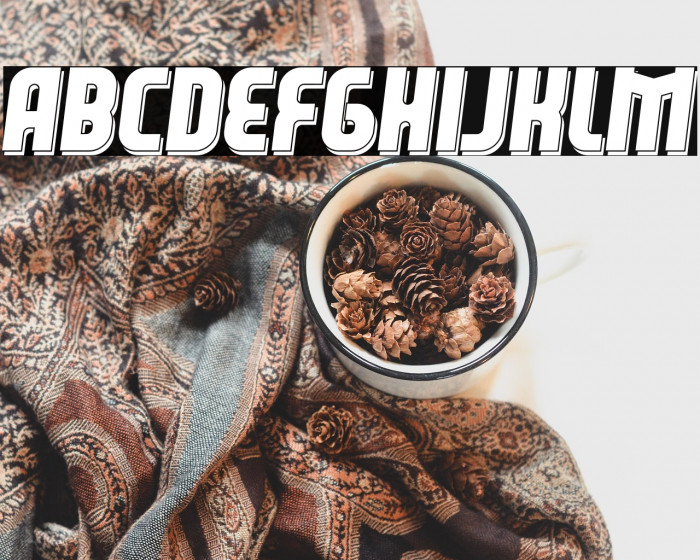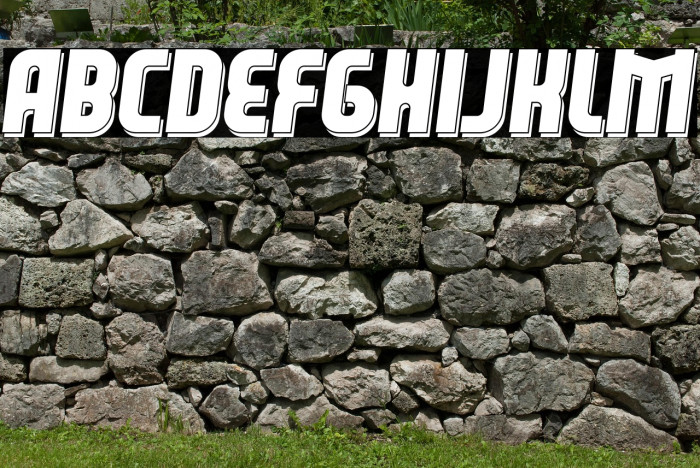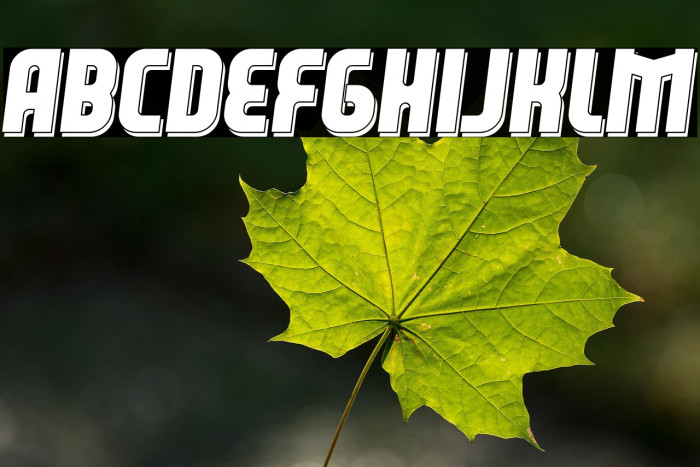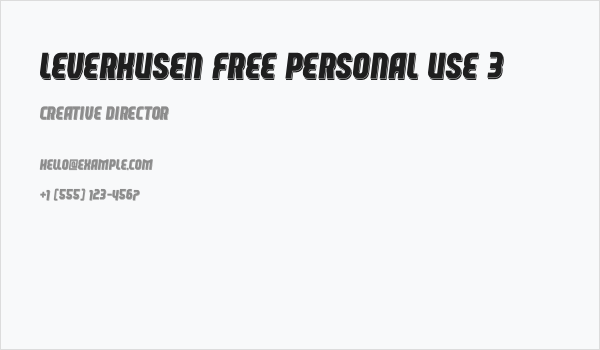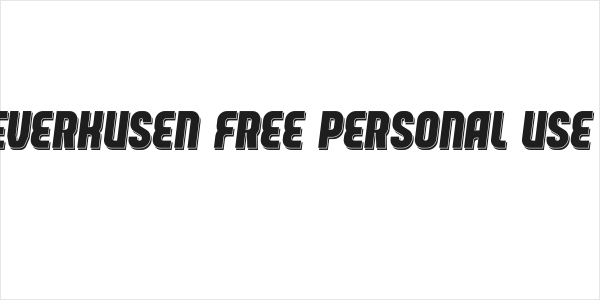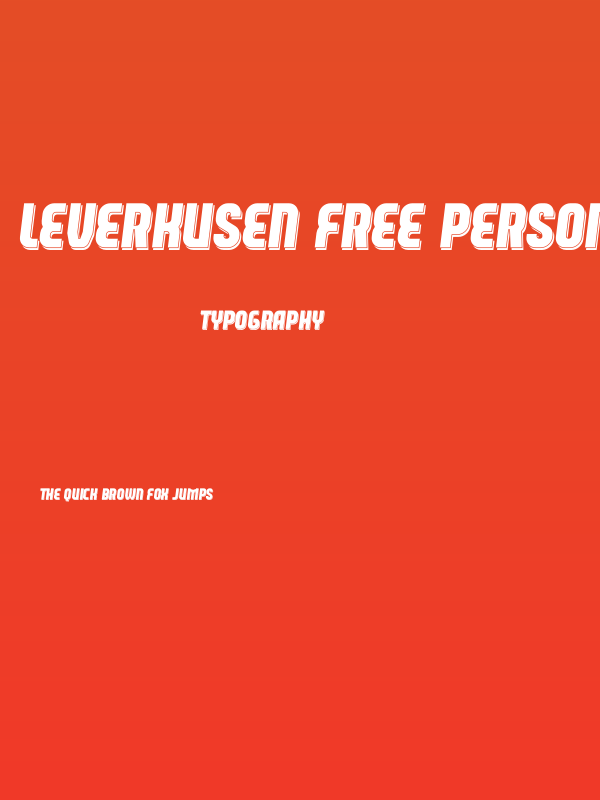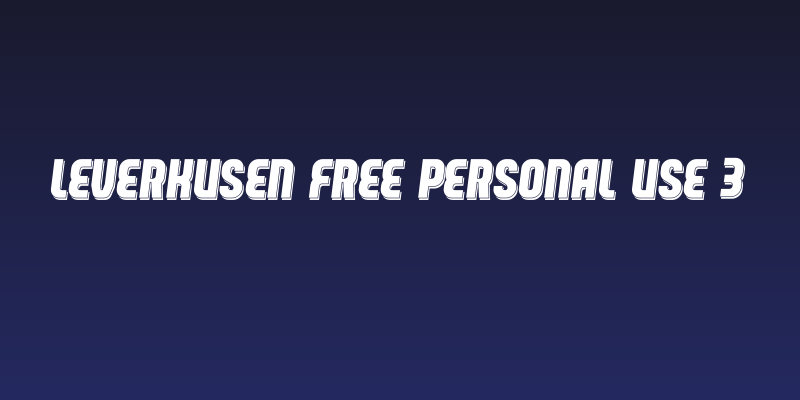
Leverkusen Free Personal Use 3 Font
Leverkusen Free Personal Use 3 Description
This font features a bold and dynamic style with a strong presence, characterized by thick strokes and a slight slant that gives it a sense of movement. The letters are tightly spaced, enhancing its compact and impactful appearance. The design includes a shadow effect that adds depth and dimension, making it stand out prominently. The uppercase and lowercase letters maintain consistency in style, while the numerals and special characters complement the overall aesthetic. This font is ideal for creating attention-grabbing headlines and logos.
| Proposed Projects | Ideal for sports branding, dynamic posters, and eye-catching headlines. |